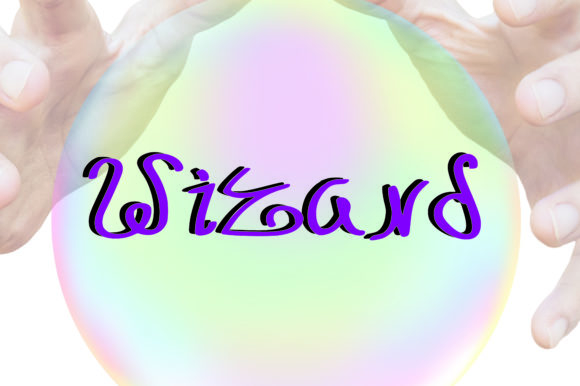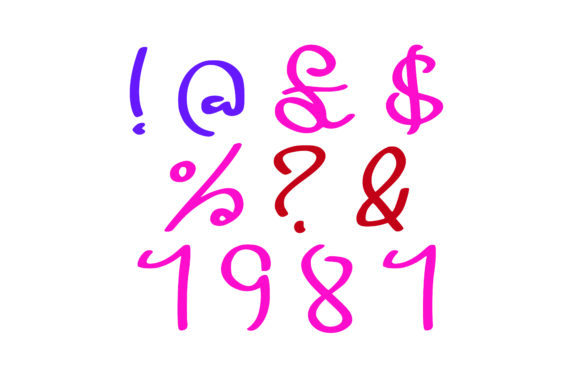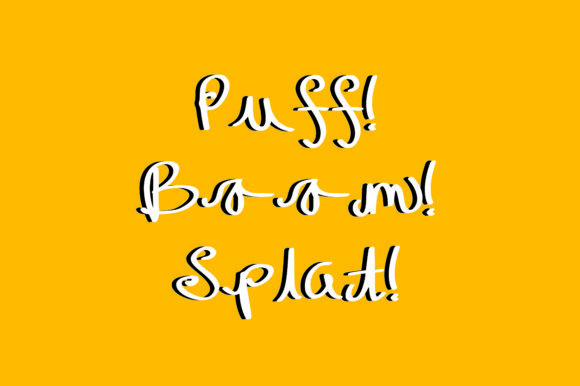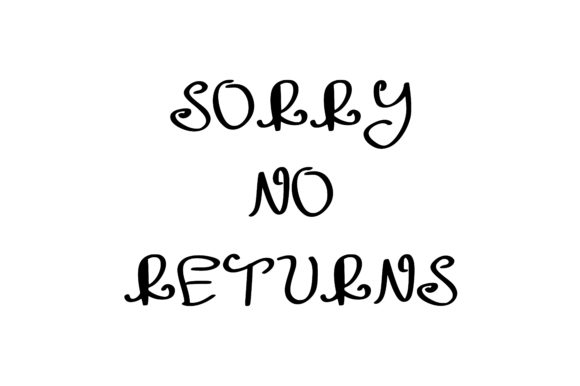
HomeScript FontsWizard Font Script Fonts Wizard Font FacebookXPinterestWhatsApp Wizard Font Poster 2 Wizard Font Poster 3 Wizard Font Poster 4 About Wizard Font Magical and playful, this unique handwritten font will easily turn any design project into a true stand out. DOWNLOAD NOW People also explored Jabore Font Midnight Font Boyhood Realwano Font Honorable Font Elila Font Daniela Font Mastury Font Perform Generic Font 303 0 TagsWizard Font Previous articleWax Moon FontNext articleWide Boy Font LEAVE A REPLY Cancel reply Comment: Please enter your comment! Name:* Please enter your name here Email:* You have entered an incorrect email address! Please enter your email address here Website: Save my name, email, and website in this browser for the next time I comment. Personal Use Free Camping Personal Use Free Read more about this font December Christmas Personal Use Free Read more about this font Lost Treasure Personal Use Free Read more about this font Avagan Personal Use Free Read more about this font BLOG How to Install and Use Fonts on Windows, macOS, and Web Projects How to Install and Use Fonts on Windows, macOS, and Web Projects Fonts are a crucial part of design and branding. Whether you’re designing a... Top 7 Google Fonts Alternatives for Faster and Privacy-Friendly Web Design (2025) Using Fonts in Digital Marketing: Tips to Strengthen Your Brand Identity 5 Fonts That Will Dominate Design Trends in 2026